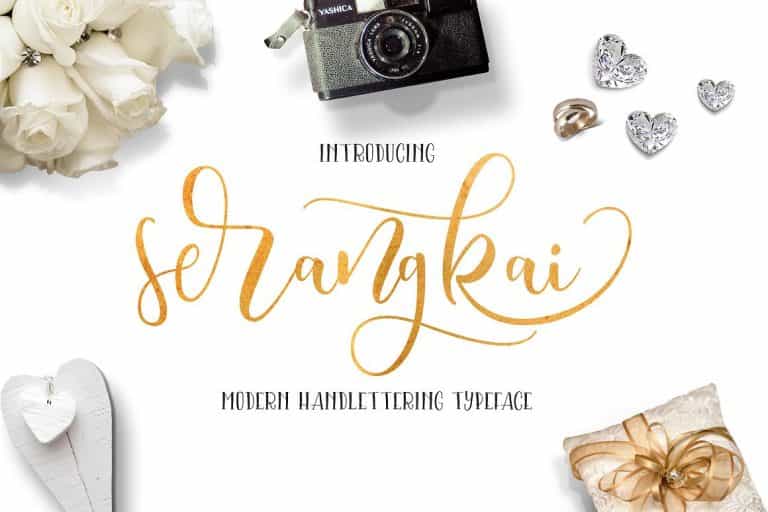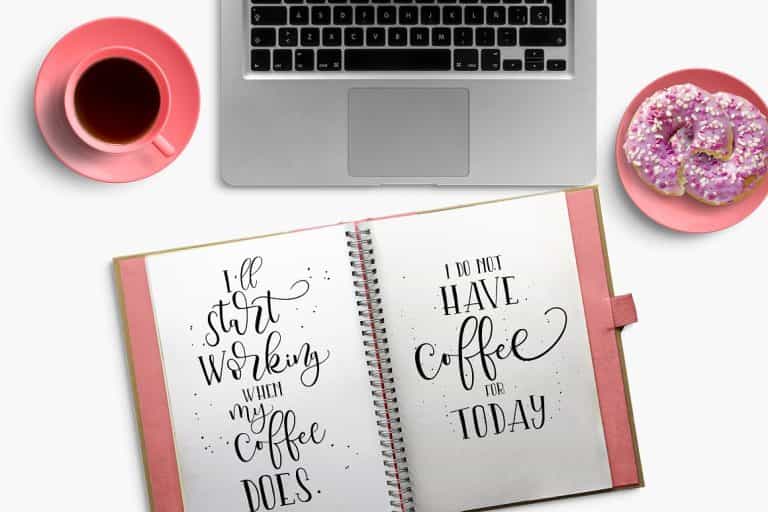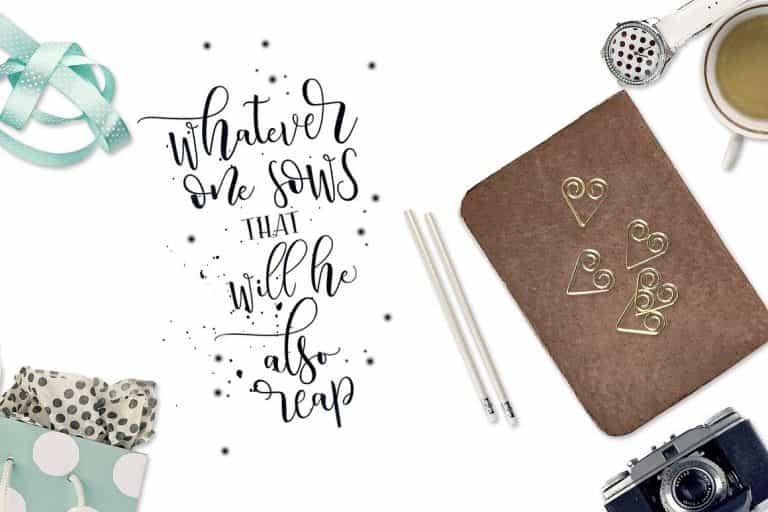
Discover Serangkai Font Duo, part of the Calligraphy Handwritten collection—a versatile and unique font perfect for adding a personal touch to your projects. Download it for free and enjoy crafting designs with style, from invitations to social media posts. This font is available exclusively for personal use, giving you the freedom to create without limits. Unlock your creativity with Serangkai Font Duo today!
Introducing Serangkai. It is were made by thirtypath. Serangkai – straightforward and quick way to generate amazing lettering, just type in your words and you will instantly see the great results. Perfect for greeting cards, branding materials, business cards, quotes, posters and many more!